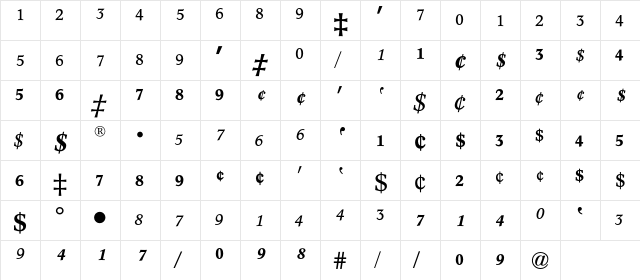
Concorde Fractions BQ Regular Font Preview
Concorde Fractions BQ Regular
Concorde Fractions BQ Regular Font Details
Design Context for Concorde Fractions BQ Typeface
Concorde Fractions BQ is a composed and adaptable typeface that performs quietly and consistently across a wide range of design contexts.